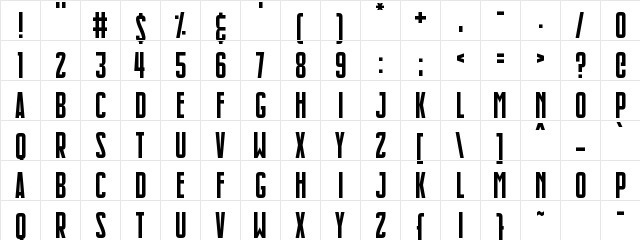
Slimlines Regular Free Font
Slimlines Regular
Design Context for Slimlines
Slimlines is a composed and adaptable typeface that performs quietly and consistently across a wide range of design contexts.
Pro Tip: Use Slimlines in both headline and body roles to test its range before committing to a single application.